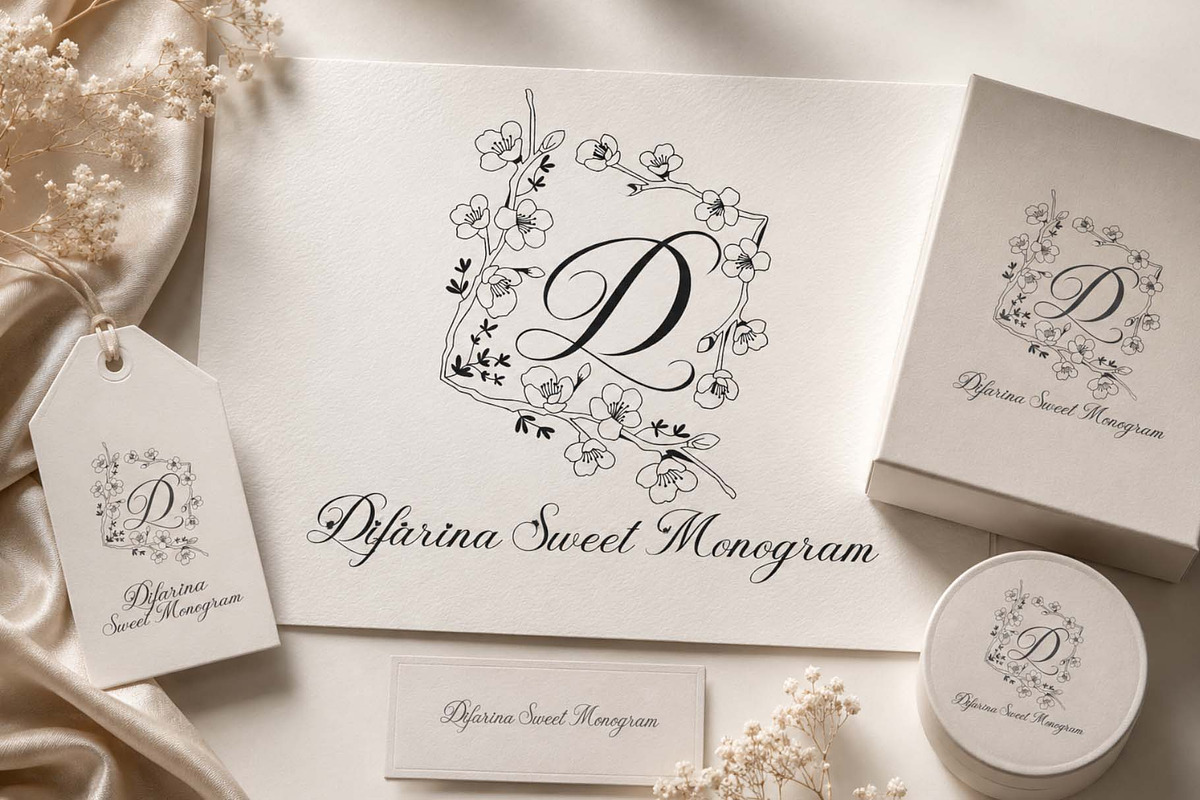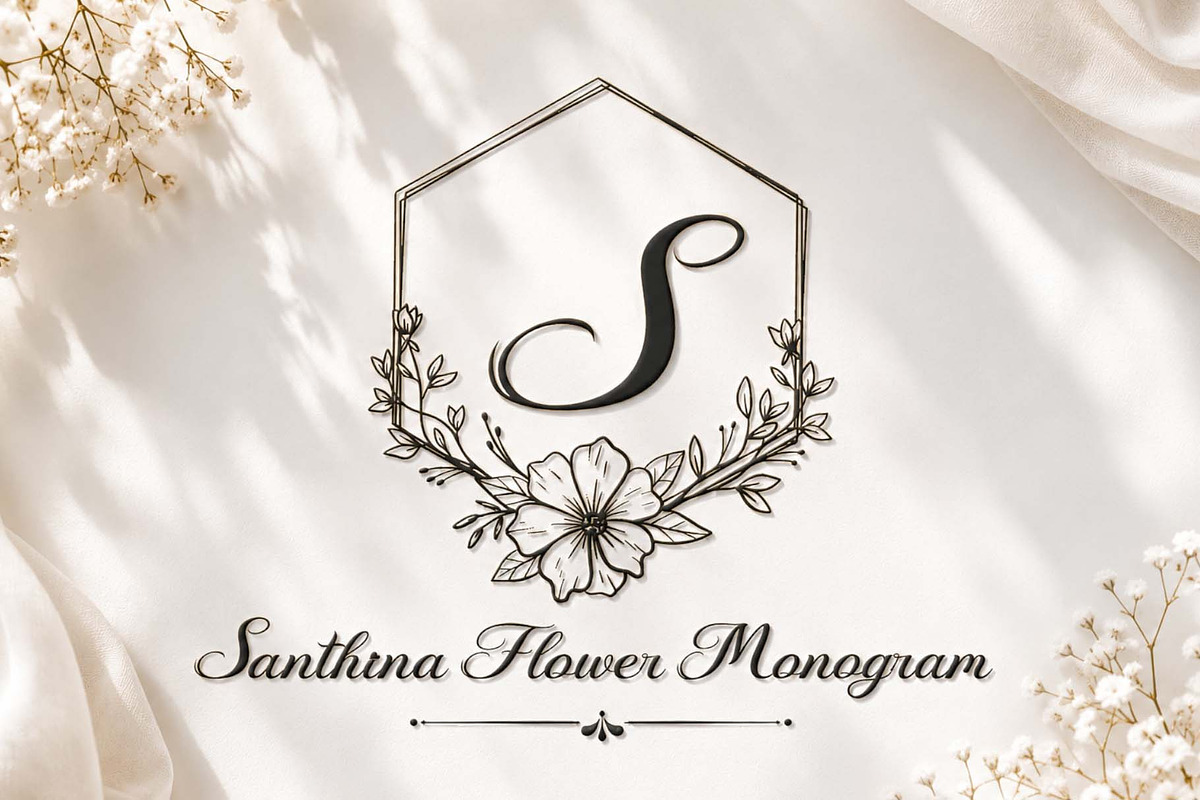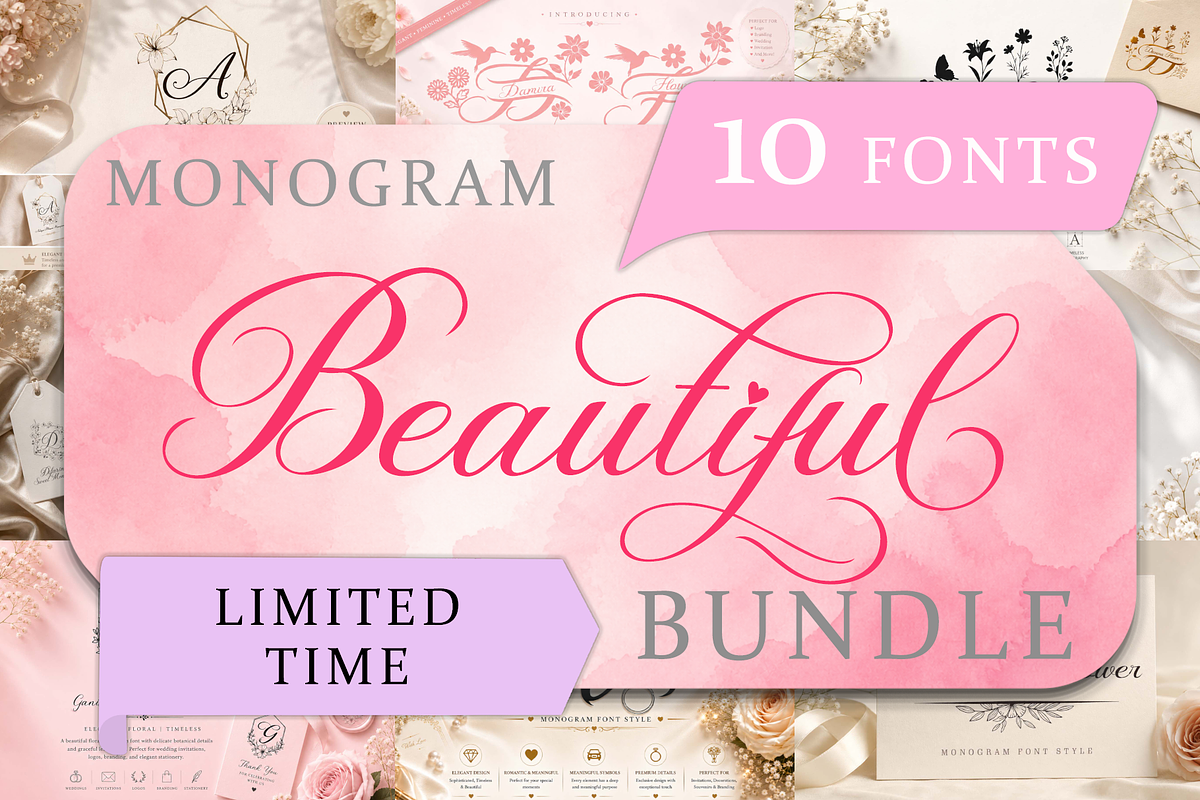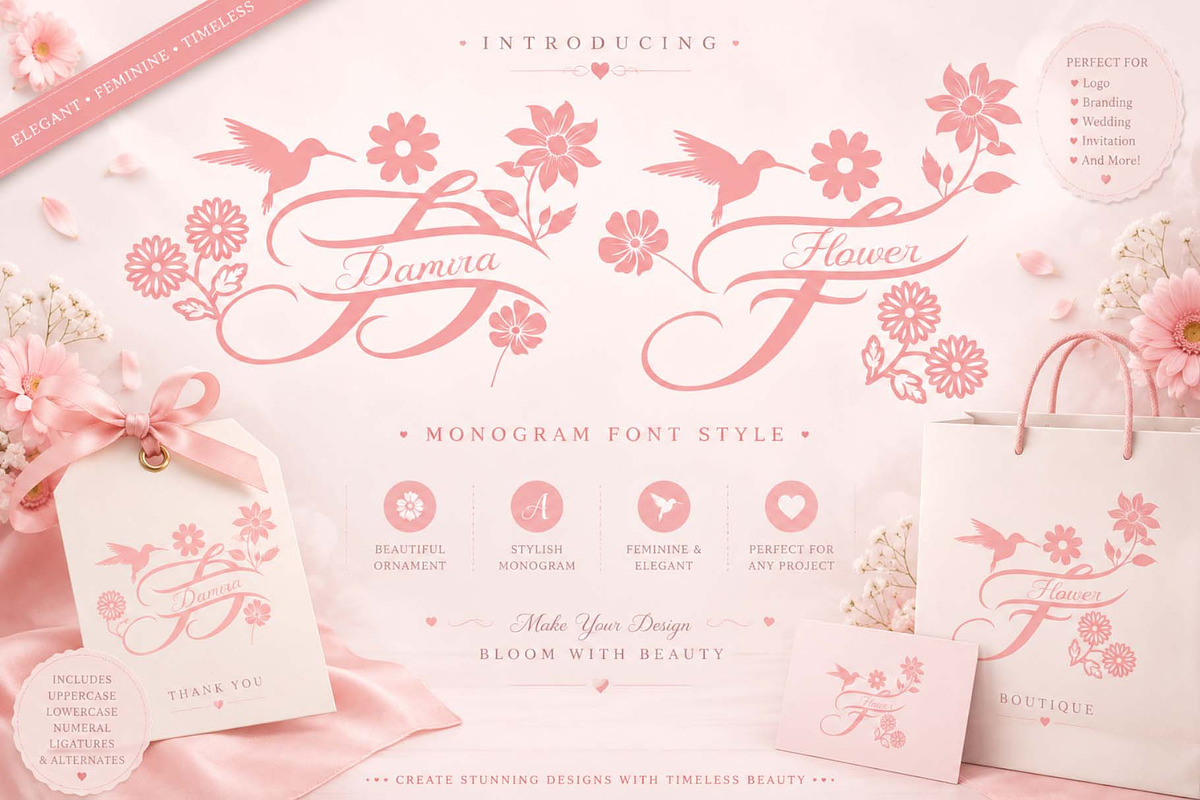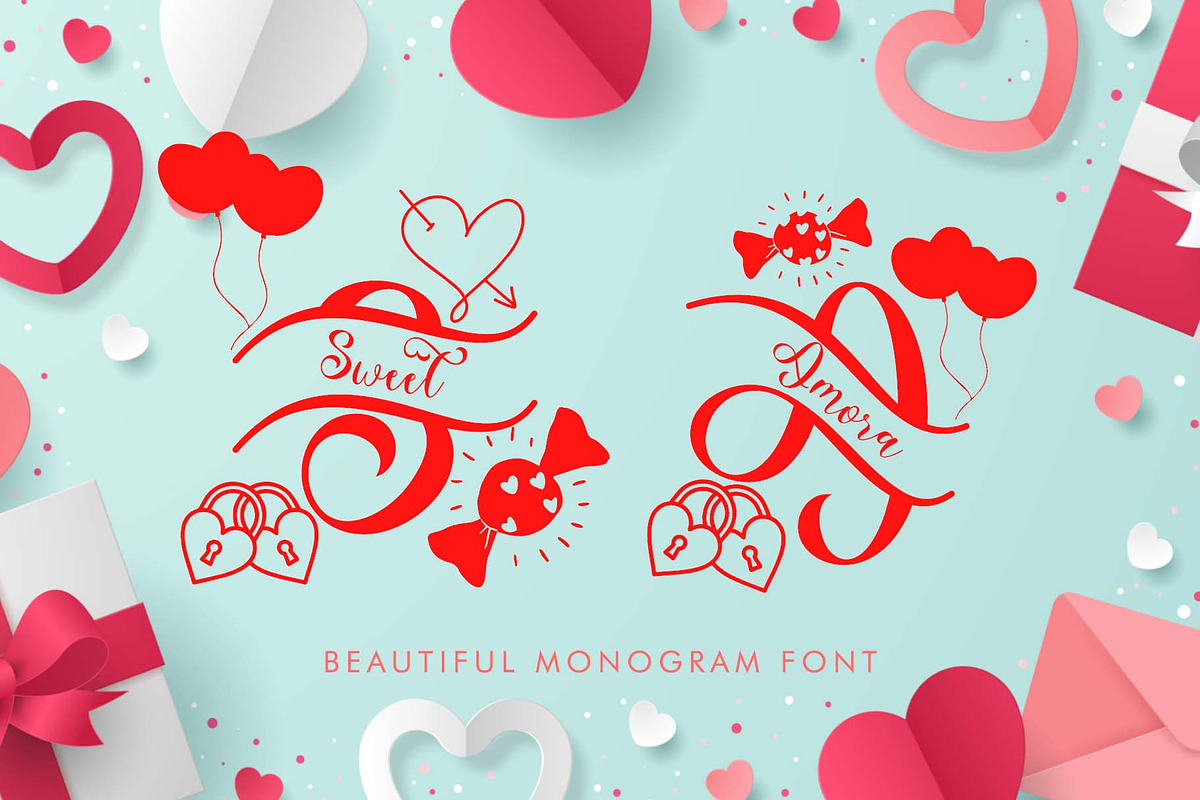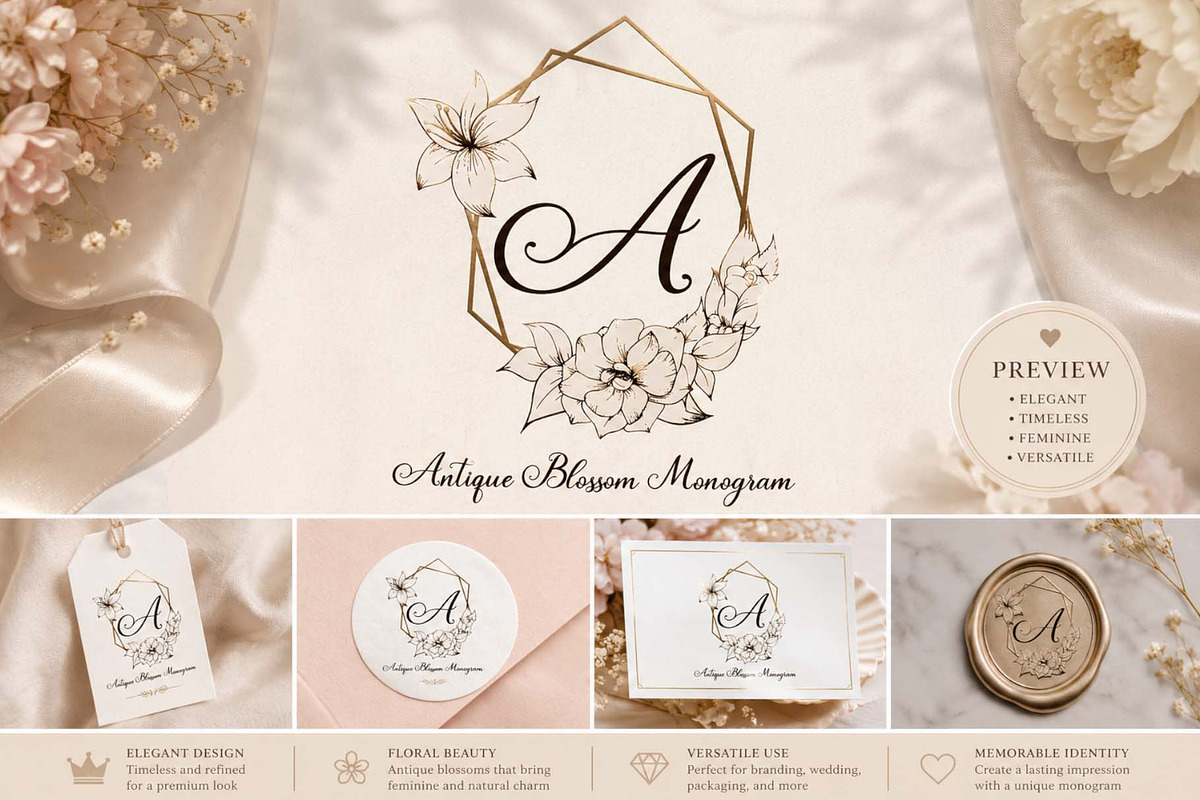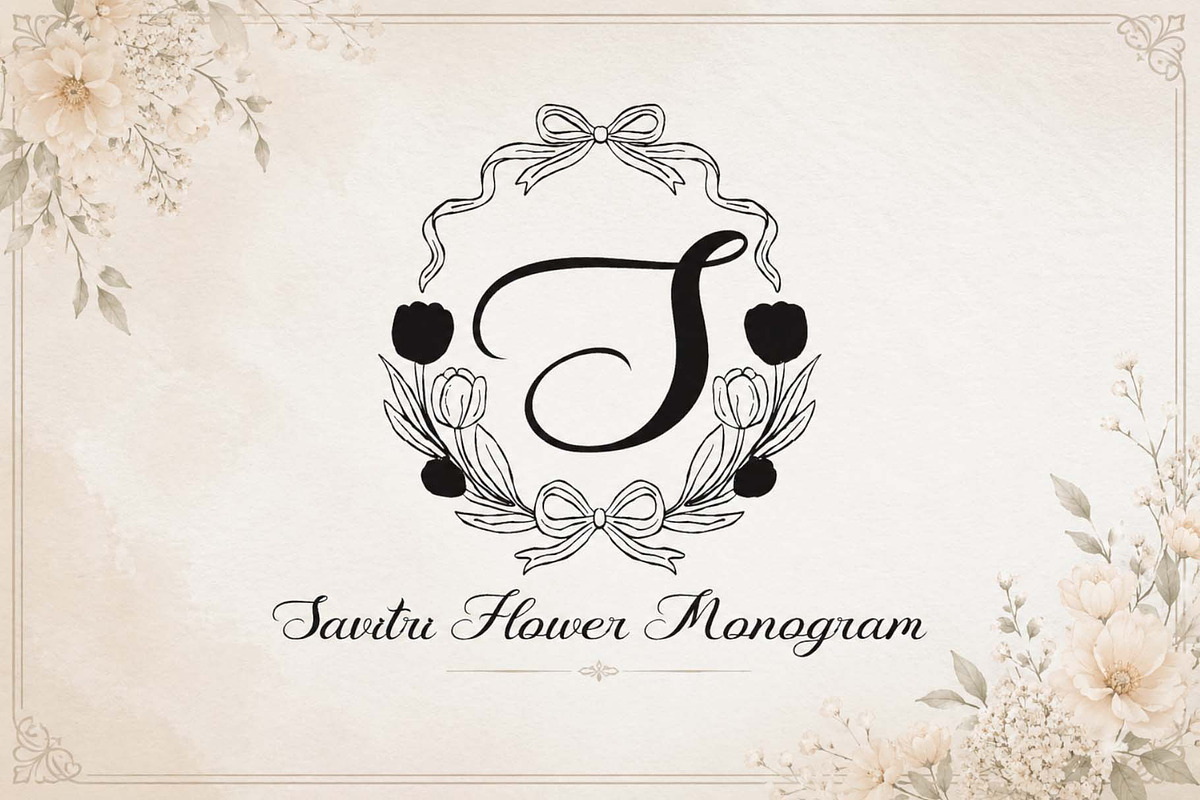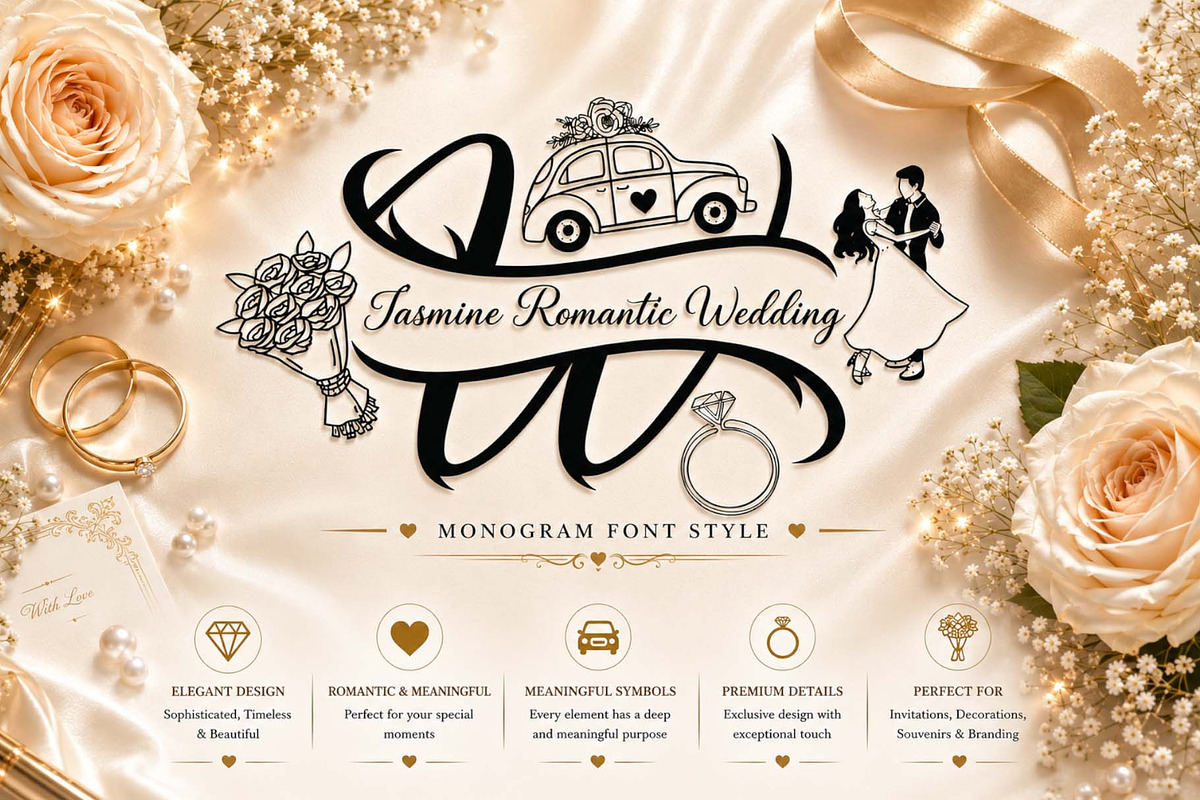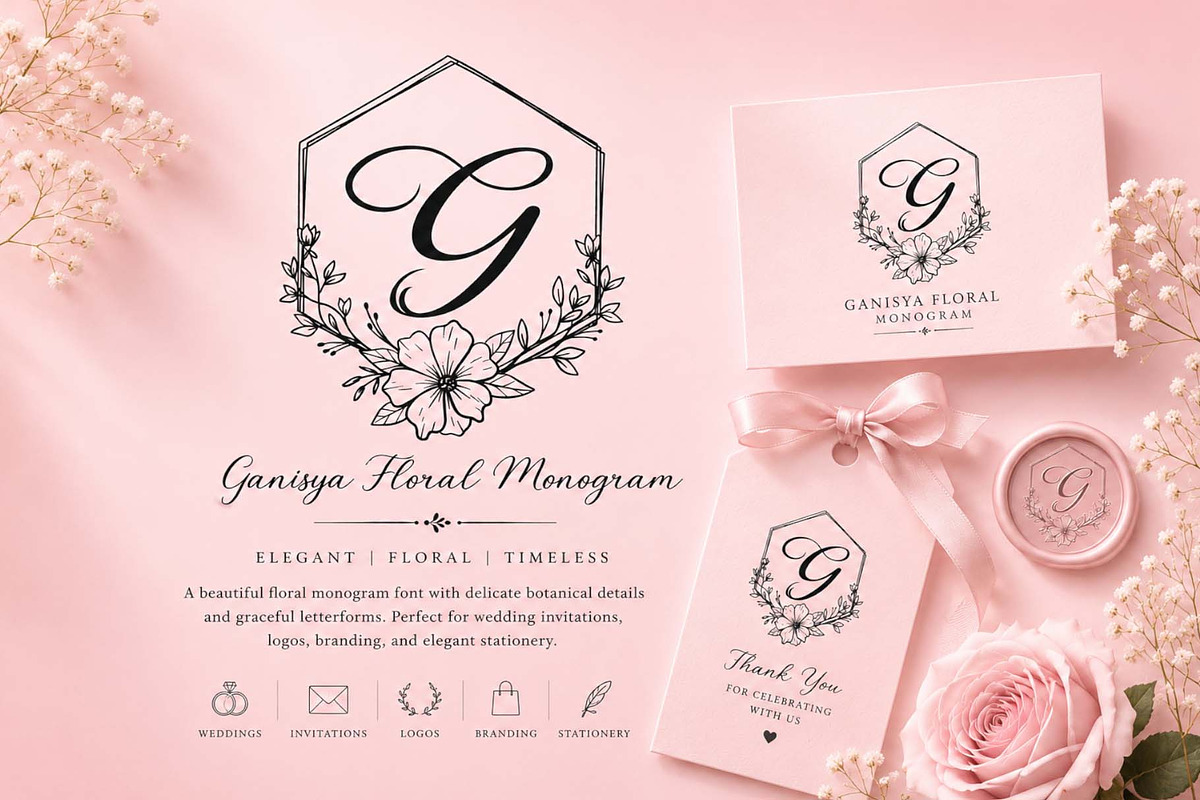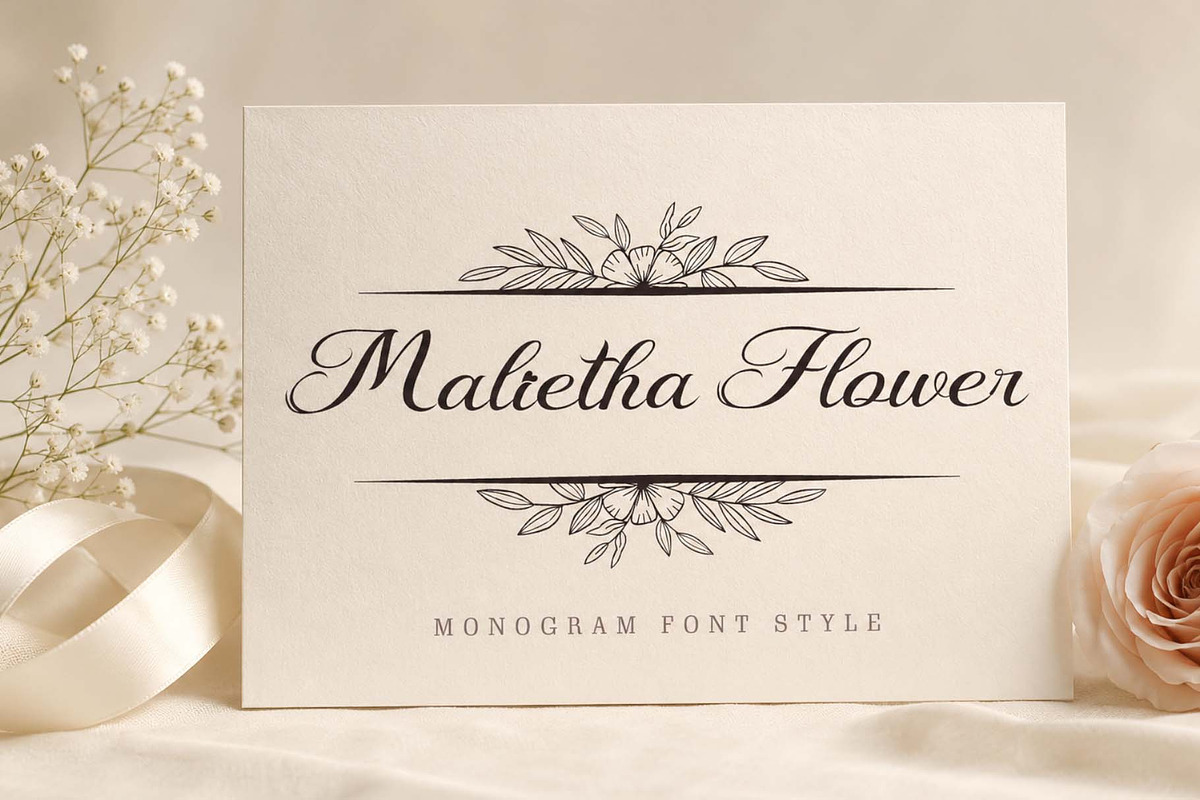
Beautiful Monogram Bundle
Elevate your creative projects with the Beautiful Monogram Bundle, featuring 10 elegant monogram fonts designed for timeless elegance. Perfect for wedding invitations, branding, logos, stationery, social media, packaging, and personalized gifts. Each font is crafted with graceful strokes and delicate details to help you create stunning, professional-quality designs with ease.